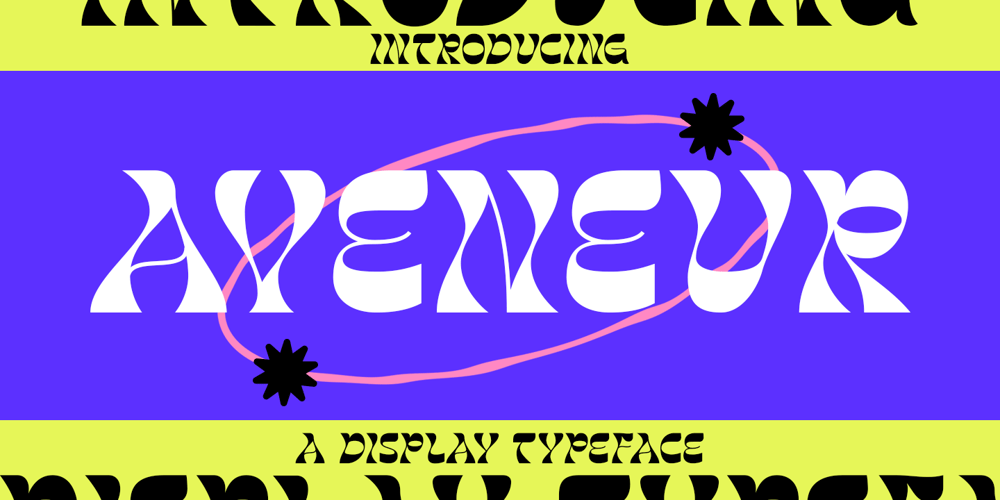
Aveneur
Aveneur font
Aveneur Font Family was designed by Abdul Malik Wisnu, Rivo Adriansyah and published by Mokatype Studio. Aveneur contains 1 styles and family package options. Hello Everyone, Introduce our new collection, Avaneur – Unique Display, Inspired by Modern logos of brands that have very strong characteristics, very suitable for posters, packaging, branding, logotype, and more. Avaneur font with strong and challenging nuances. very suitable for the title, typography, Poster, magazines, brochures, packaging, Websites and much more for your design needs, making your designs more modern and professionalWhat’s Included : + Standard glyphs + Multilingual Support + Web Font + Works on PC & Mac + Simple installationsAccessible in Adobe Illustrator, Adobe Photoshop, Adobe InDesign, even work on Microsoft Word. PUA Encoded Characters – Fully accessible without additional design software. Fonts include multilingual support+ Image used: All photographs/pictures/vectors used in the preview are not included, they are intended for illustration purposes only.Cheers! Thank You